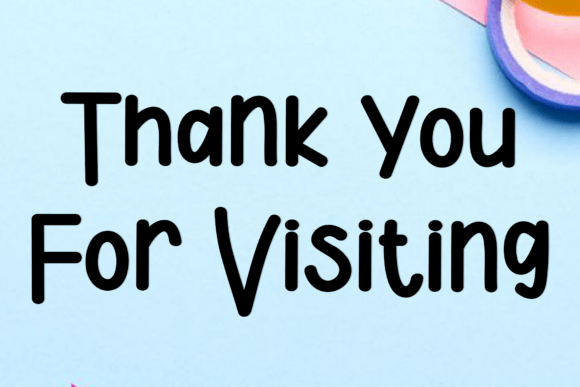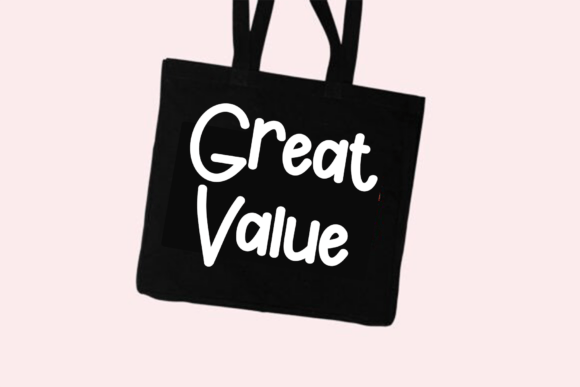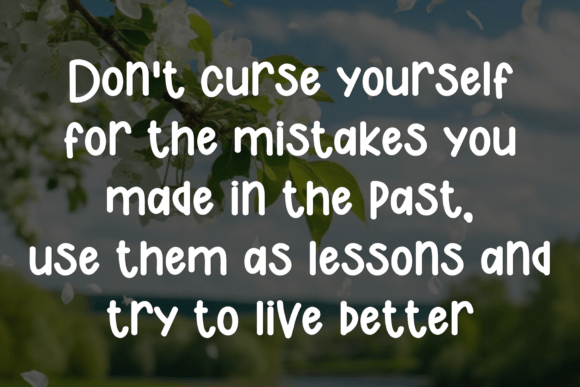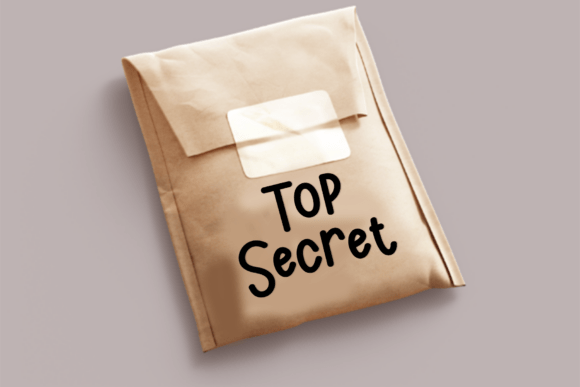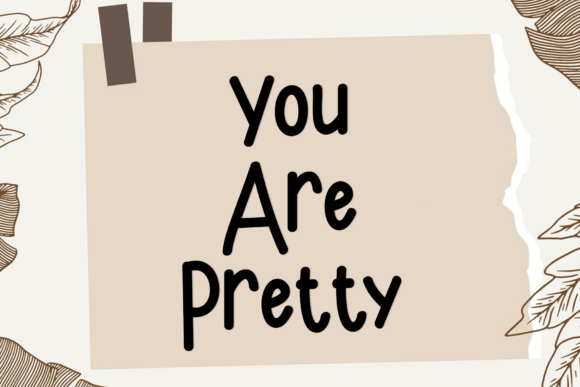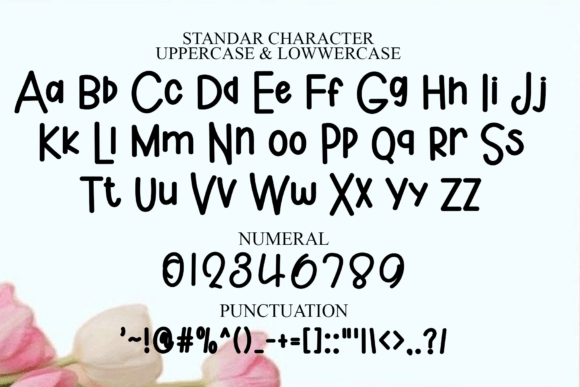
Biscuit Honey Font: A Festive and Merry Typeface for the Holiday Season
The holiday season is upon us, and with it comes the need for festive and merry designs that capture the spirit of the season. If you’re a designer or crafter looking for a typeface that adds a touch of enchantment to your projects, look no further than the Biscuit Honey Font. This decorative font is perfect for greeting cards, gift tags, and holiday-themed projects, bringing a cheerful and nostalgic ambiance to your words.
What is Biscuit Honey Font?
Biscuit Honey Font is a beautifully crafted typeface that embodies the magic of the holiday season. With its whimsical flair and decorative elements, this font is sure to add a touch of wonder to your designs. Whether you’re creating holiday greeting cards, gift tags, or festive posters, Biscuit Honey Font is the perfect choice.
Key Features of Biscuit Honey Font
- Festive and Merry Design: Biscuit Honey Font is designed to capture the spirit of the holiday season, with a festive and merry design that’s sure to put a smile on anyone’s face.
- Decorative Elements: This font features decorative elements that add a touch of enchantment to your designs, making them perfect for holiday-themed projects.
- Whimsical Flair: With its whimsical flair, Biscuit Honey Font brings a playful and nostalgic ambiance to your words, making them perfect for greeting cards, gift tags, and other holiday projects.
Uses for Biscuit Honey Font
Biscuit Honey Font is a versatile typeface that can be used for a variety of holiday-themed projects, including:
- Holiday Greeting Cards: Create beautiful and festive holiday greeting cards that will delight your friends and family.
- Gift Tags: Add a touch of magic to your gift tags with Biscuit Honey Font, making them perfect for presents, stockings, and more.
- Festive Posters: Create eye-catching and festive posters that capture the spirit of the holiday season, perfect for advertising, promotions, and more.
- Holiday-themed Crafts: Use Biscuit Honey Font to add a touch of whimsy and wonder to your holiday-themed crafts, such as scrapbooking, journaling, and more.
Why Choose Biscuit Honey Font?
With so many fonts to choose from, why should you choose Biscuit Honey Font for your holiday projects? Here are just a few reasons:
- Unique and Festive Design: Biscuit Honey Font features a unique and festive design that’s sure to stand out from the crowd.
- Versatile: This font can be used for a variety of holiday-themed projects, making it a great addition to your font library.